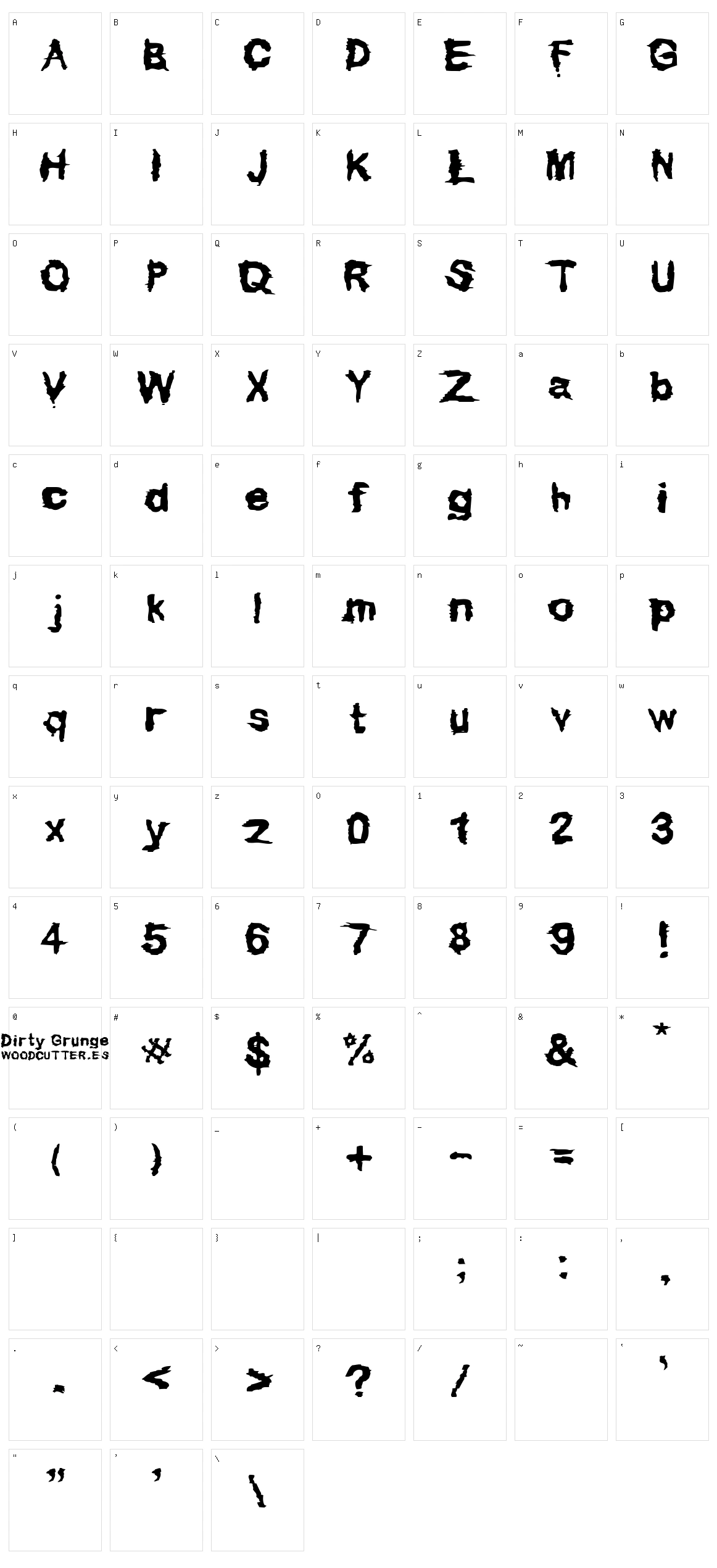
The free font Dirty Grunge is carefully designed by Woodcutter, showcasing a thoughtful balance of creativity and usability and falls under the Trash font style. When you download the ZIP file, it contains only 39.16 KB of font files, making it lightweight and quick to download. Please review the license details below to understand permitted usage and distribution rights. If license information is not available, we recommend using this font for personal projects only or contacting the author directly for commercial usage permissions.